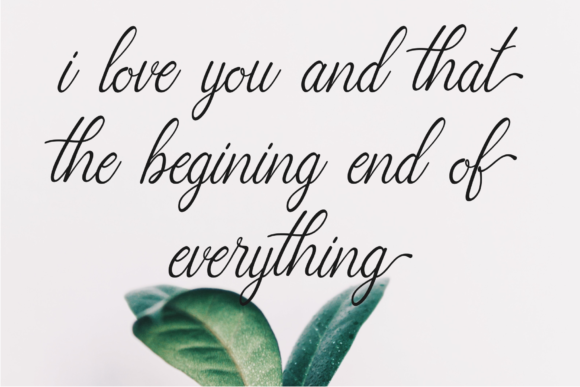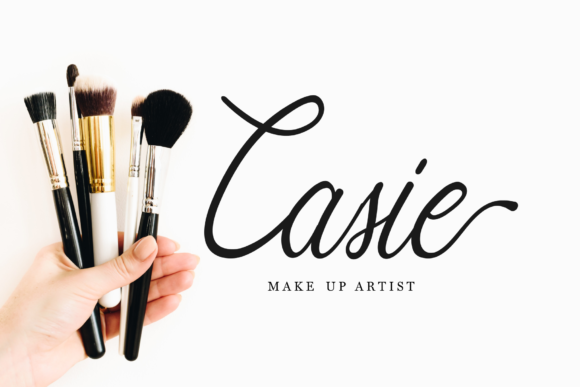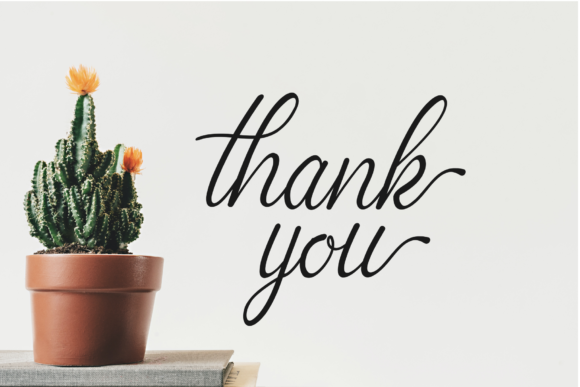
Introducing Charlote Script Font: Elevate Your Designs with Elegance
In the world of typography, a font can make or break a design. For designers and crafters looking for a touch of elegance and sophistication, Charlote Script Font is an excellent addition to your font library. This delicate script font boasts a relaxed theme, featuring a lovely style that can elevate any creation.
The Charm of Charlote Script
Charlote Script is designed to bring a sense of fluidity and harmony to your designs. Its unique and elegant style makes it perfect for a wide range of projects, from wedding invitations and branding materials to packaging and digital media. The font’s relaxed theme gives it a friendly and approachable feel, making it suitable for designs that require a personal touch.
Key Features of Charlote Script
- Delicate and Elegant Style: Charlote Script features a beautiful, cursive design that adds a touch of sophistication to any project.
- Relaxed Theme: The font’s relaxed theme makes it perfect for designs that require a friendly and approachable feel.
- PUA Encoded: Charlote Script is PUA (Private Use Area) encoded, which means you can access all the glyphs and swashes with ease.
- Versatile: This font can be used for a wide range of projects, including wedding invitations, branding materials, packaging, and digital media.
Benefits of Using Charlote Script
Adding Charlote Script to your font library can bring numerous benefits to your designs. Here are a few:
- Elegance and Sophistication: Charlote Script adds a touch of elegance and sophistication to any design, making it perfect for projects that require a high-end feel.
- Flexibility: The font’s versatile design makes it suitable for a wide range of projects, from formal to informal.
- Easy to Use: Charlote Script is PUA encoded, making it easy to access all the glyphs and swashes.
- Time-Saving: With Charlote Script, you can create beautiful designs quickly and efficiently, saving you time and effort.
Tips for Using Charlote Script
To get the most out of Charlote Script, here are a few tips:
- Pair it with Other Fonts: Combine Charlote Script with other fonts to create a unique and visually appealing design.
- Experiment with Swashes: Take advantage of the font’s swashes to add a personal touch to your designs.
- Use it for Headings and Titles: Charlote Script is perfect for headings and titles, adding a touch of elegance and sophistication to your designs.
Charlote Script Font is an excellent addition to any designer’s font library. Its delicate and elegant style, relaxed theme, and PUA encoding make it a versatile and easy-to-use font that can elevate any creation. Whether you’re working on a wedding invitation, branding material, or digital media, Charlote Script is sure to bring a touch of sophistication and elegance to your designs.